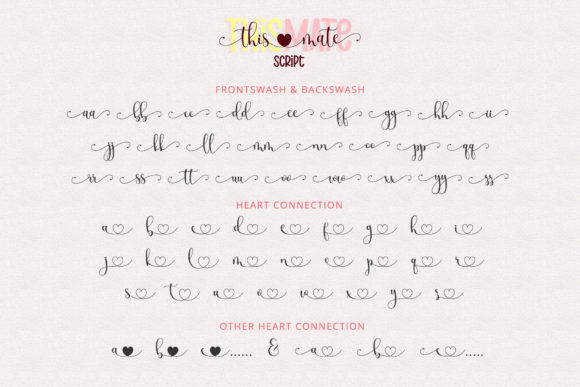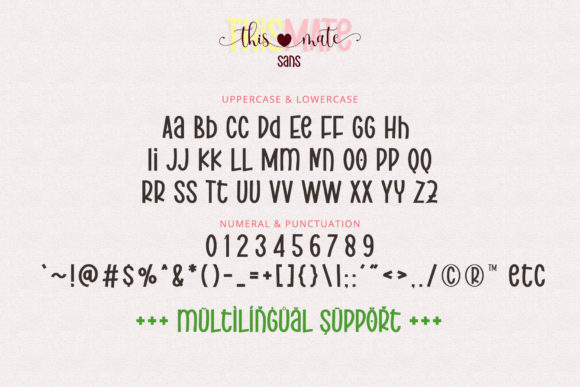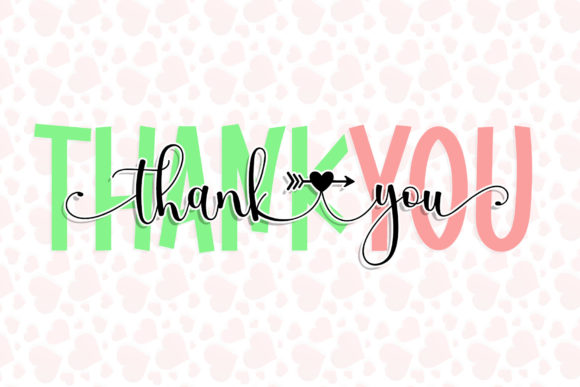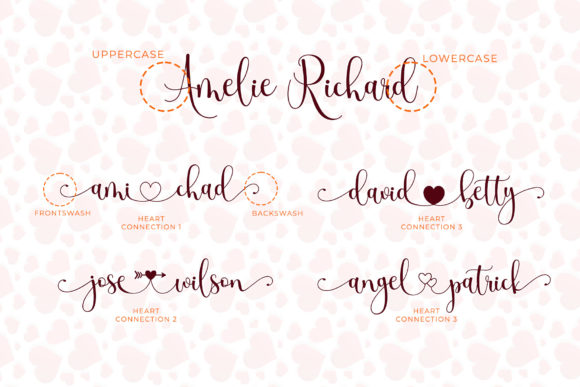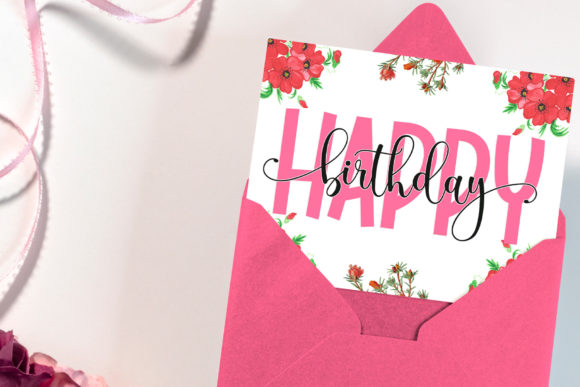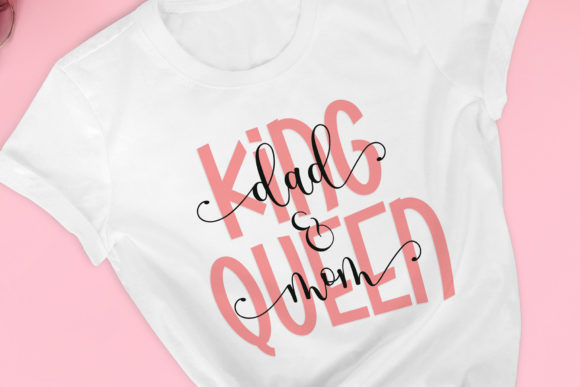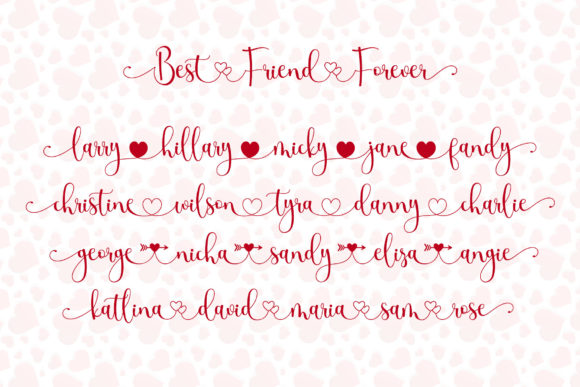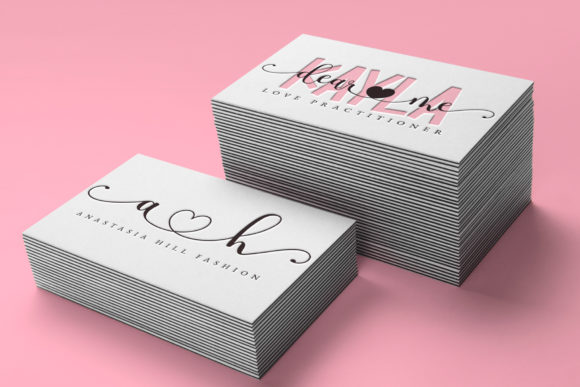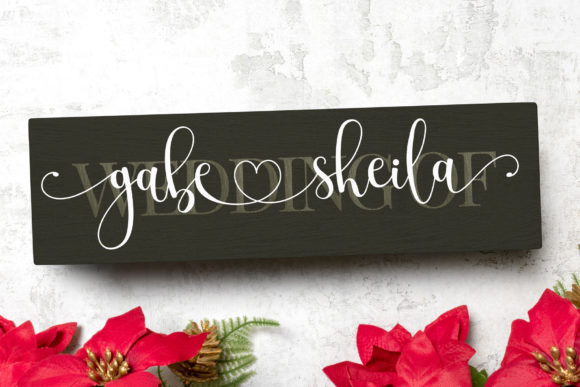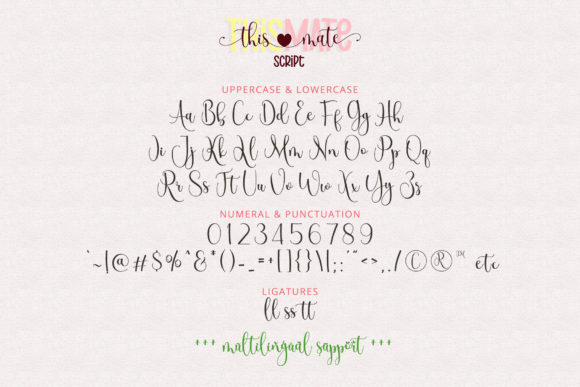
This Mate Font Font
About This Mate Font
This Mate is a versatile duo font (script and sans serif). It will add a luxury spark to any design project that you wish to create! This font is PUA encoded which means you can access all of the amazing glyphs and ligatures with ease!